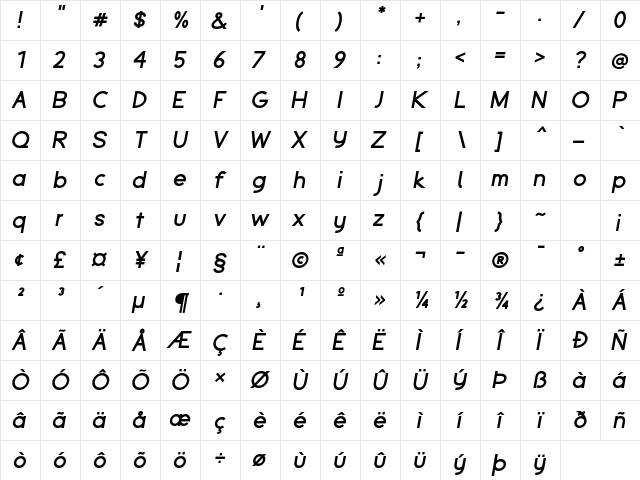
Espera Bold Italic
Bold Italic ·  Barbara Trein ·
DesignerBarbara Trein
Design Context for Espera Typeface
Espera is a composed and adaptable typeface that performs quietly and consistently across a wide range of design contexts. The slanted form adds forward momentum and visual energy. The heavy weight commands attention and anchors typographic hierarchies.
Pro Tip: Try Espera for annotation and caption copy alongside an upright companion — the contrast in angle creates a dynamic but ordered typographic system.